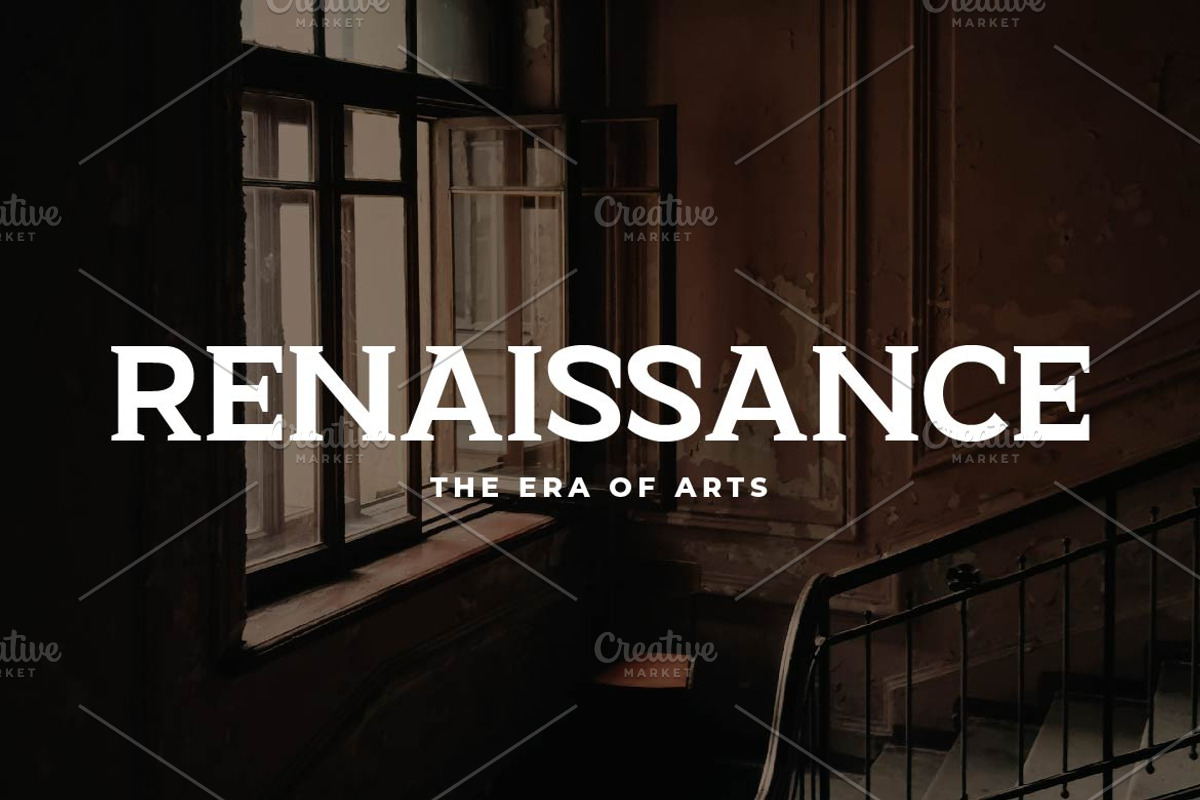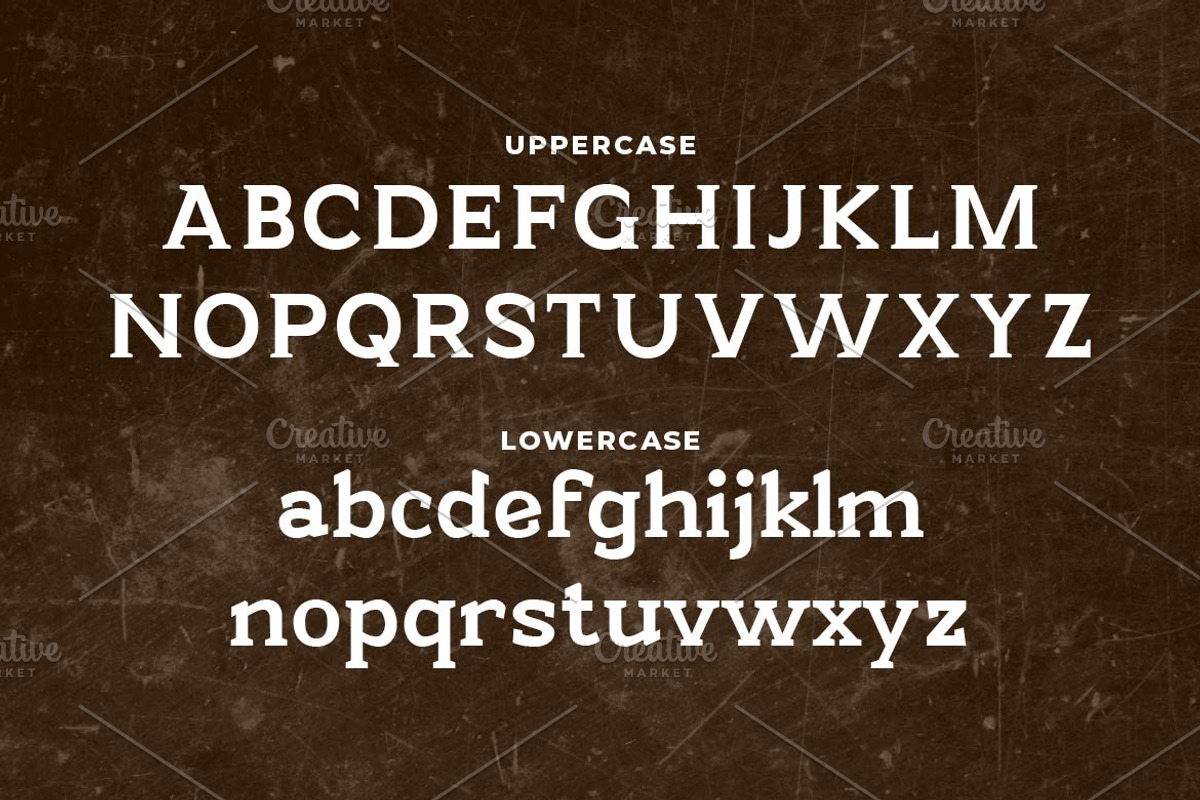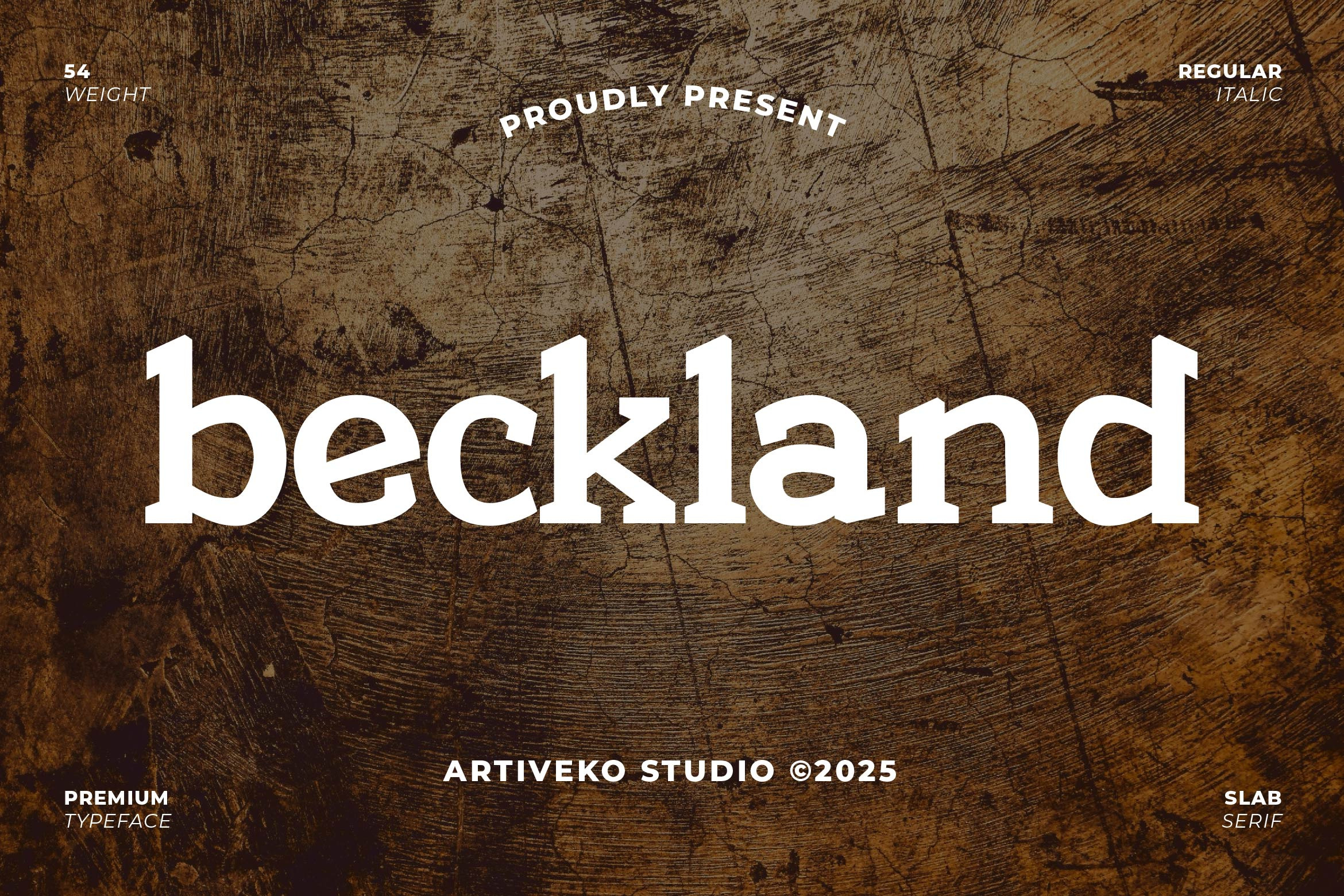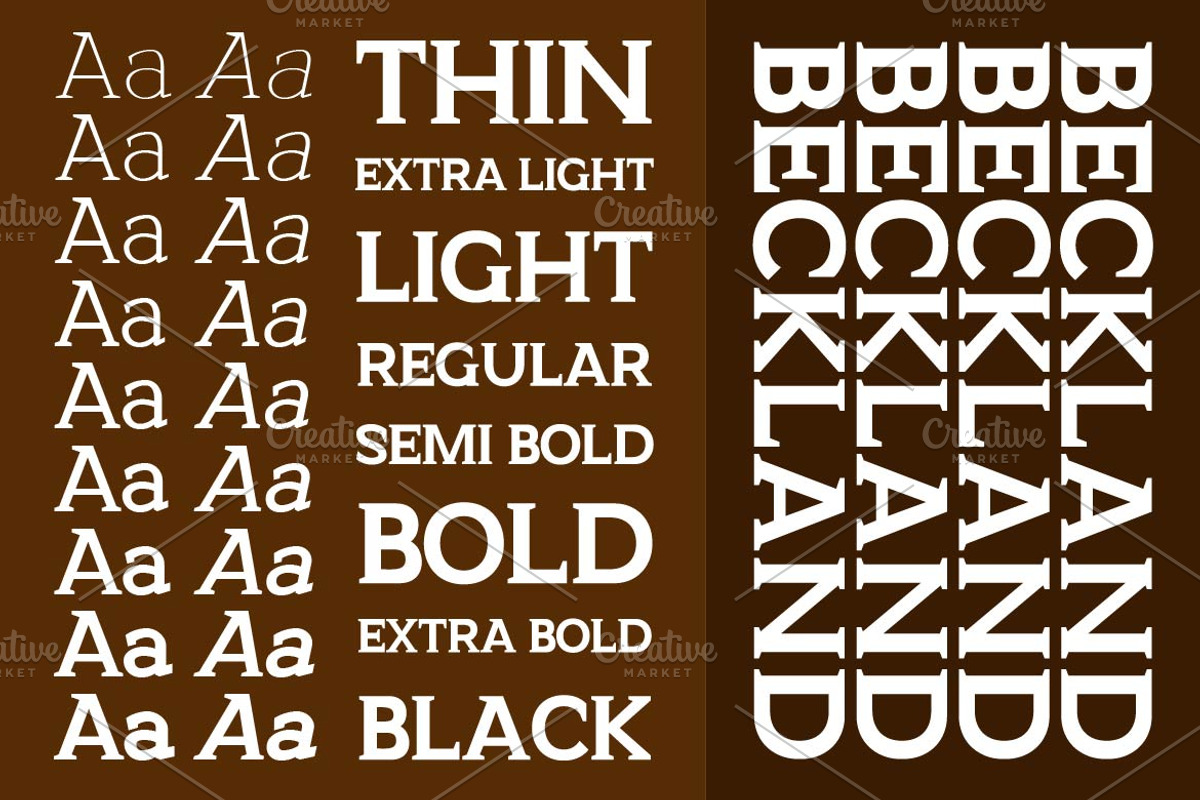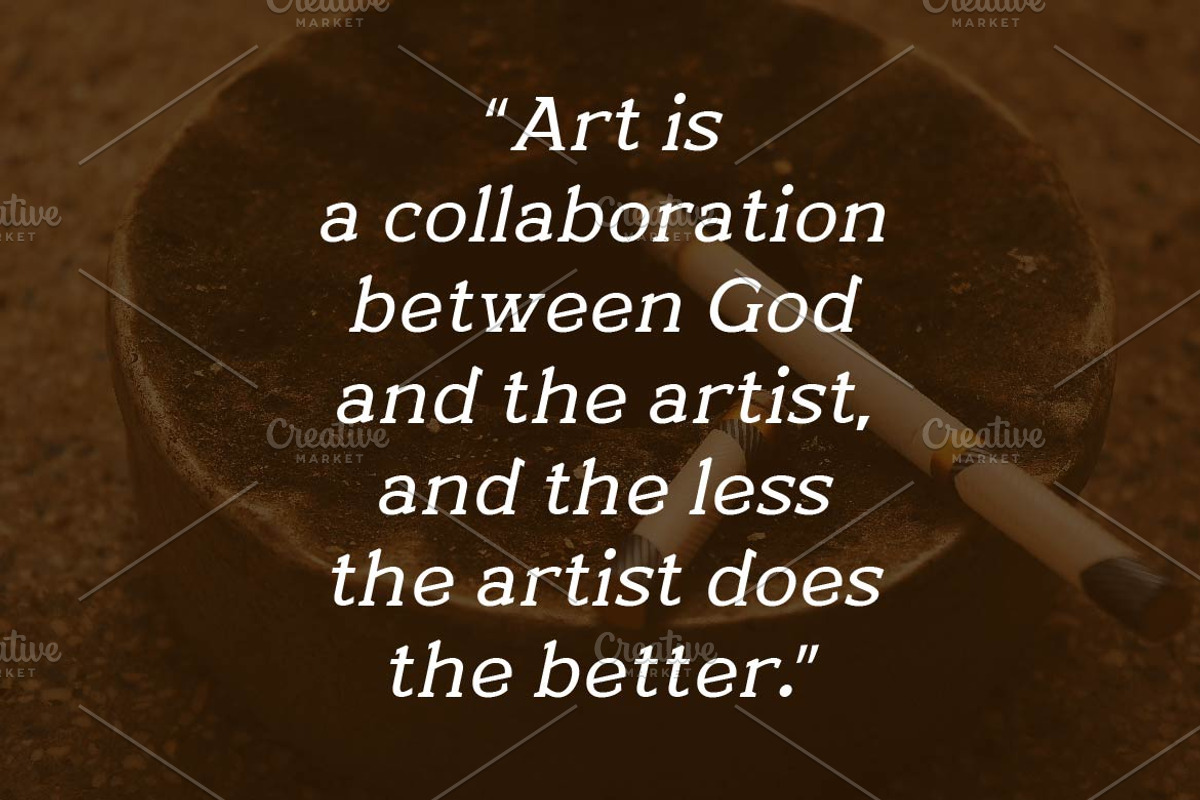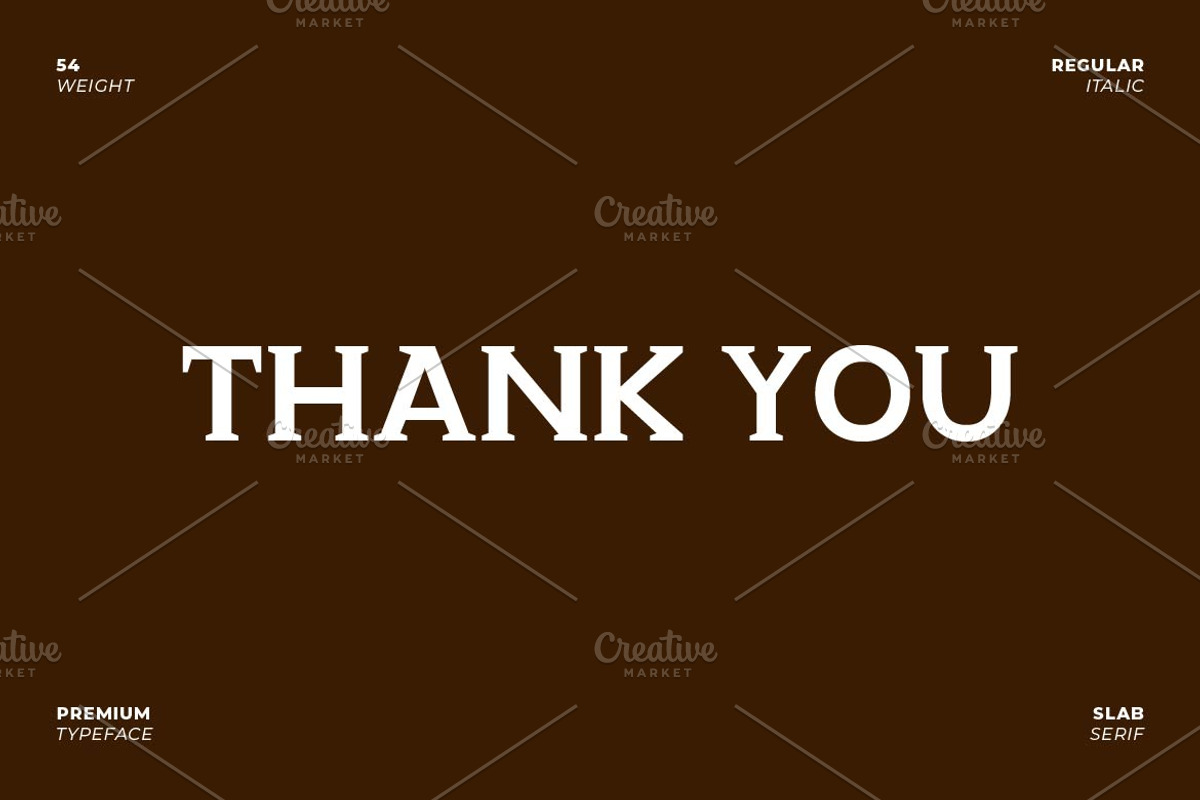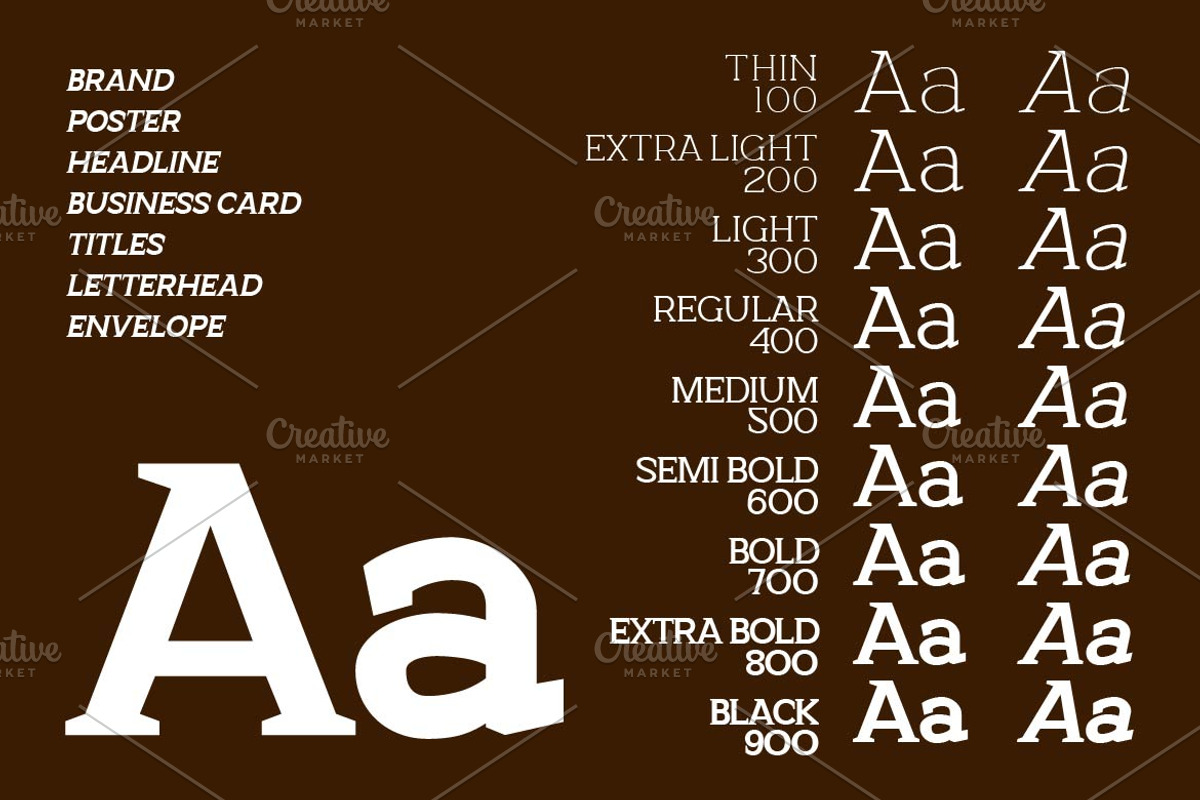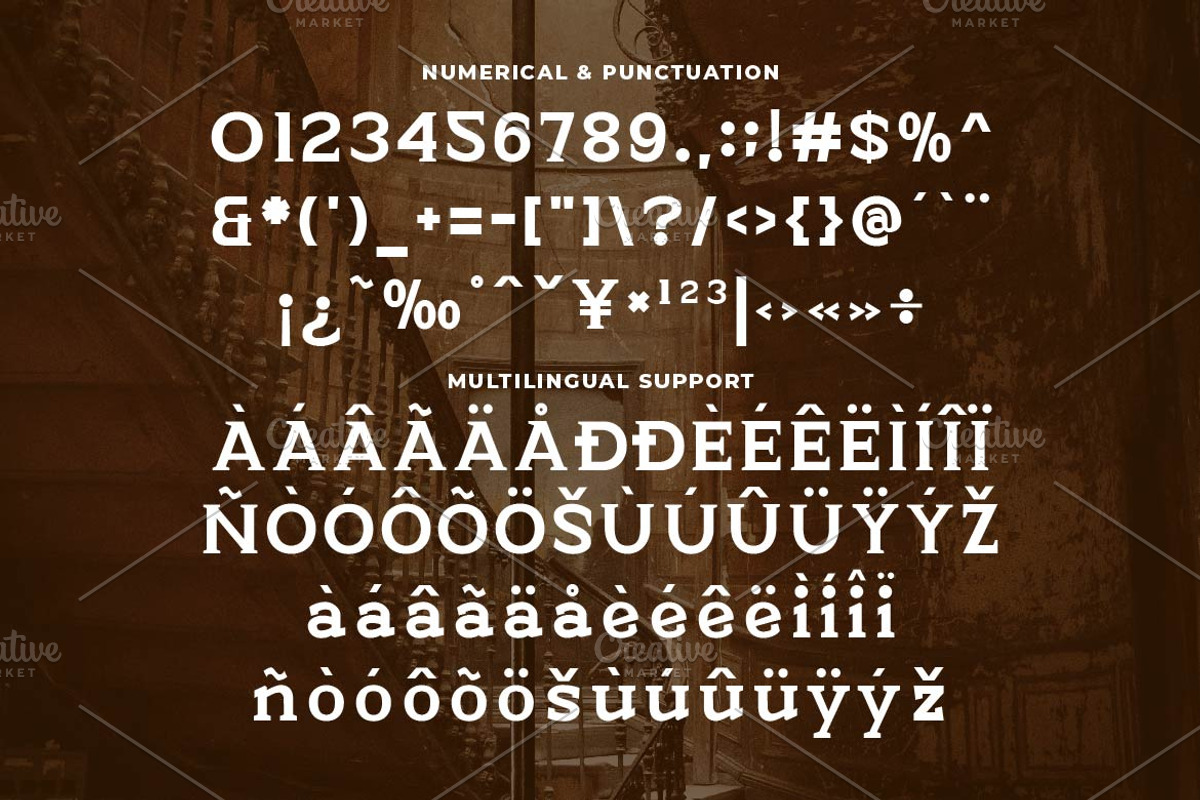
Beckland Serif Font Family
Beckland is a vintage serif font designed with classic elegance and timeless charm. Inspired by old-world typography, it features refined serifs and balanced letterforms, making it perfect for branding, packaging, book covers, and editorial design. With multilingual support, ligatures, and alternates, Beckland brings a nostalgic yet sophisticated touch, ideal for projects that seek a vintage yet stylish aesthetic.